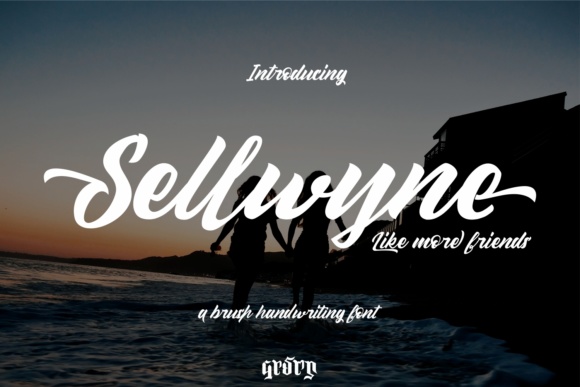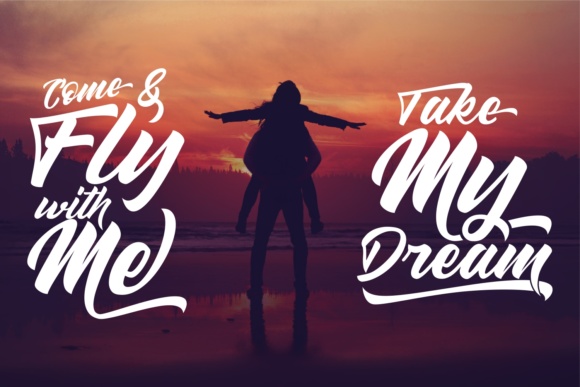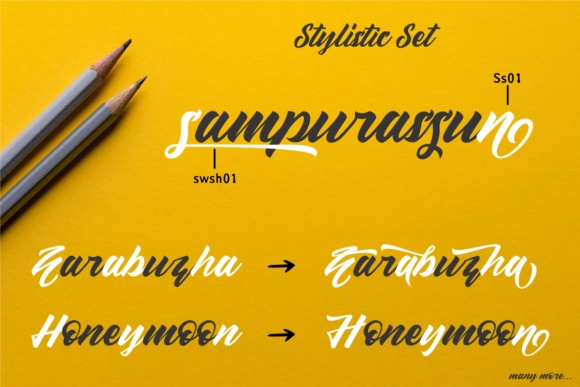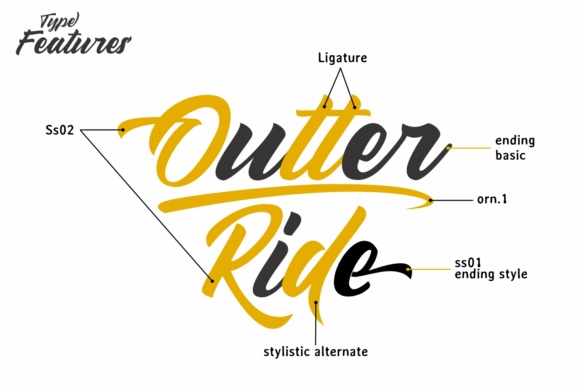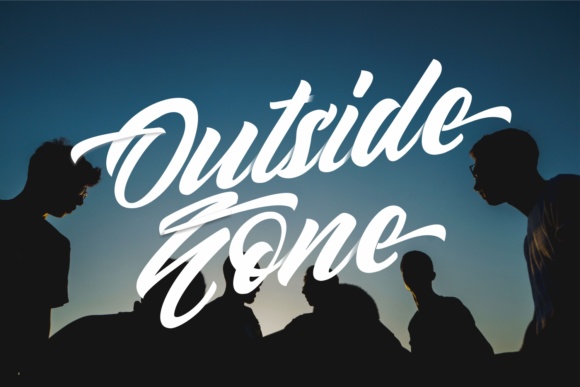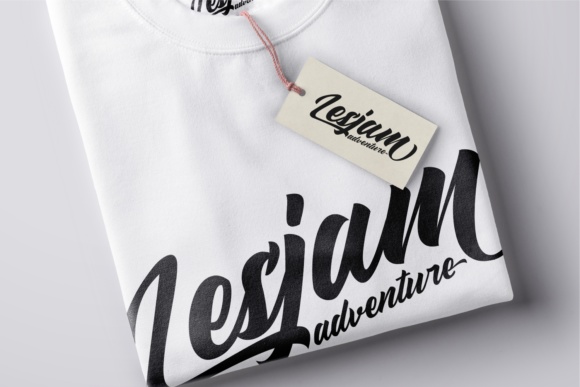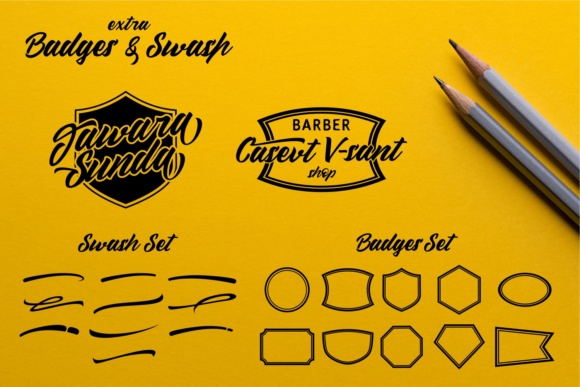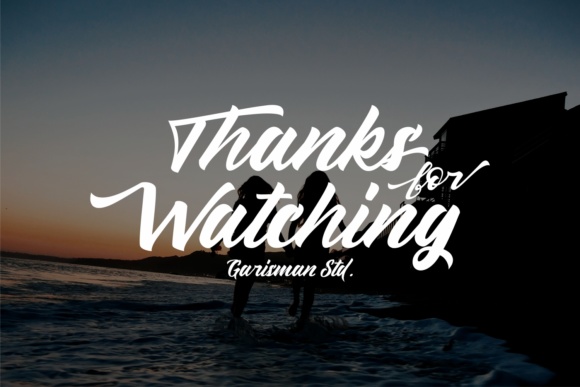
Sellwyne Font
About Sellwyne Font
Sellwyne is a beautiful font inspired by a friend named Selyn; this font has a reliable and relaxed vibe to it, just like a best friend! This font has a handlettered quality and gives off a painterly aesthetic to projects.